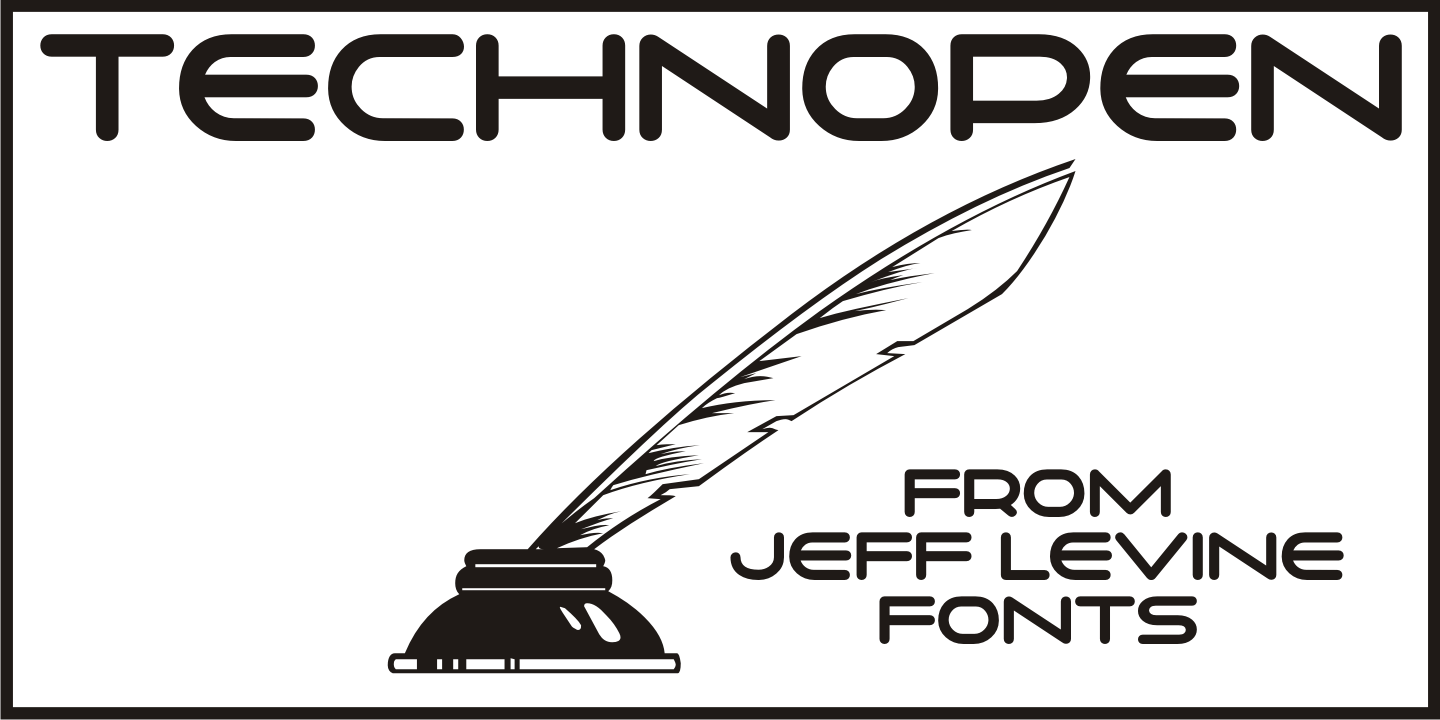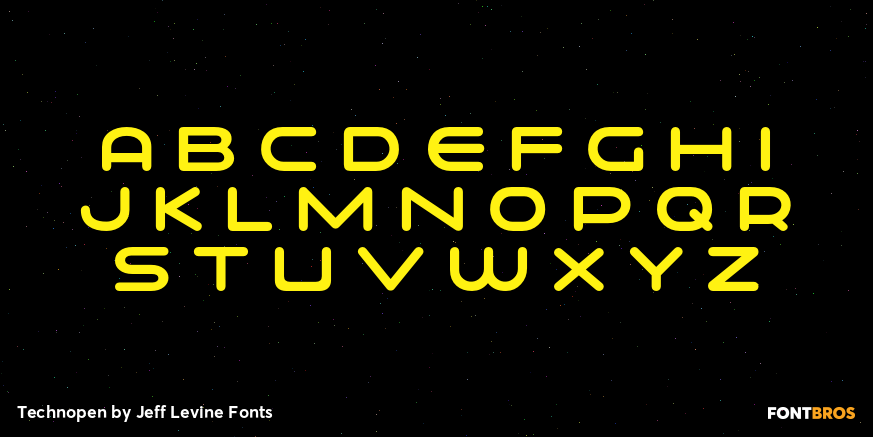
Technopen
At first glance, the lettering style of Technopen JNL seems to emulate the computer-age fonts of the 1980s. In actuality, this font is derived from an alphabet sample found in an instructional booklet for the Esterbrook Drawlet Pens.
The Drawlet line was Esterbrook's answer to the iconic Speedball pen points sold through their chief competitor, the Hunt Pen Manufacturing Company.
So, what seems to be late 20th Century typography is actually from vintage source material. In fact, the entire contents of the instructional booklet were copyright 1929!
A few minor changes were made to the original A-Z alphabet and additional characters were added. The name Technopen is a shortening of the term 'technical pen', which is both a nod to the techno age of the 80s and the technical instruments of the past utilized for drawing and lettering.